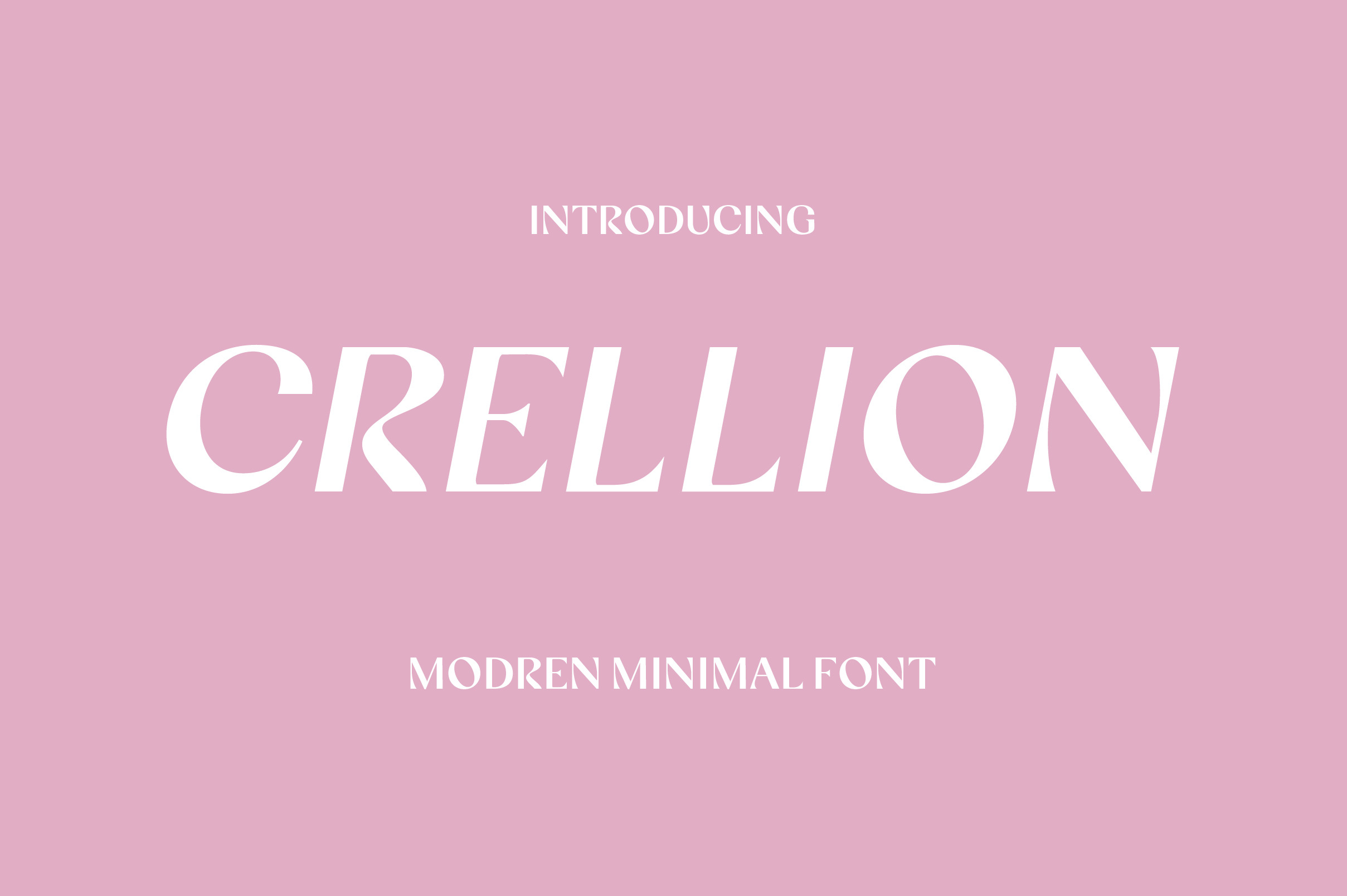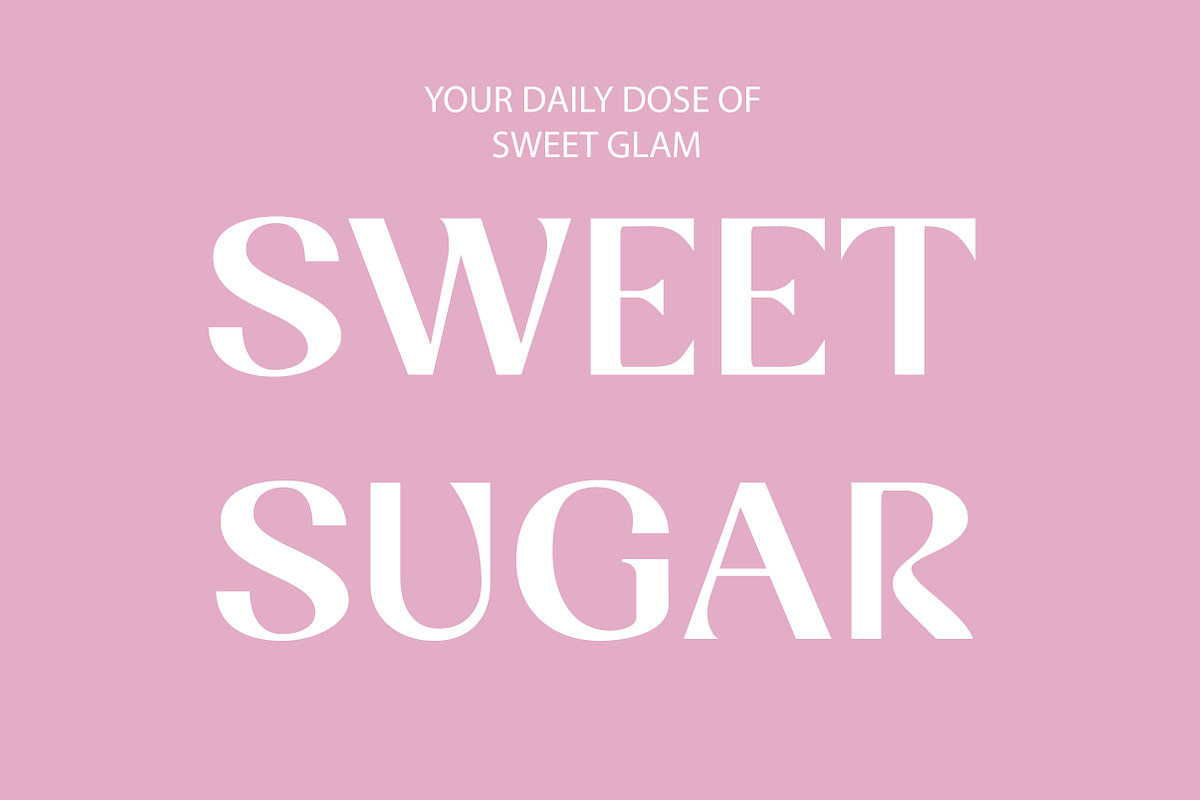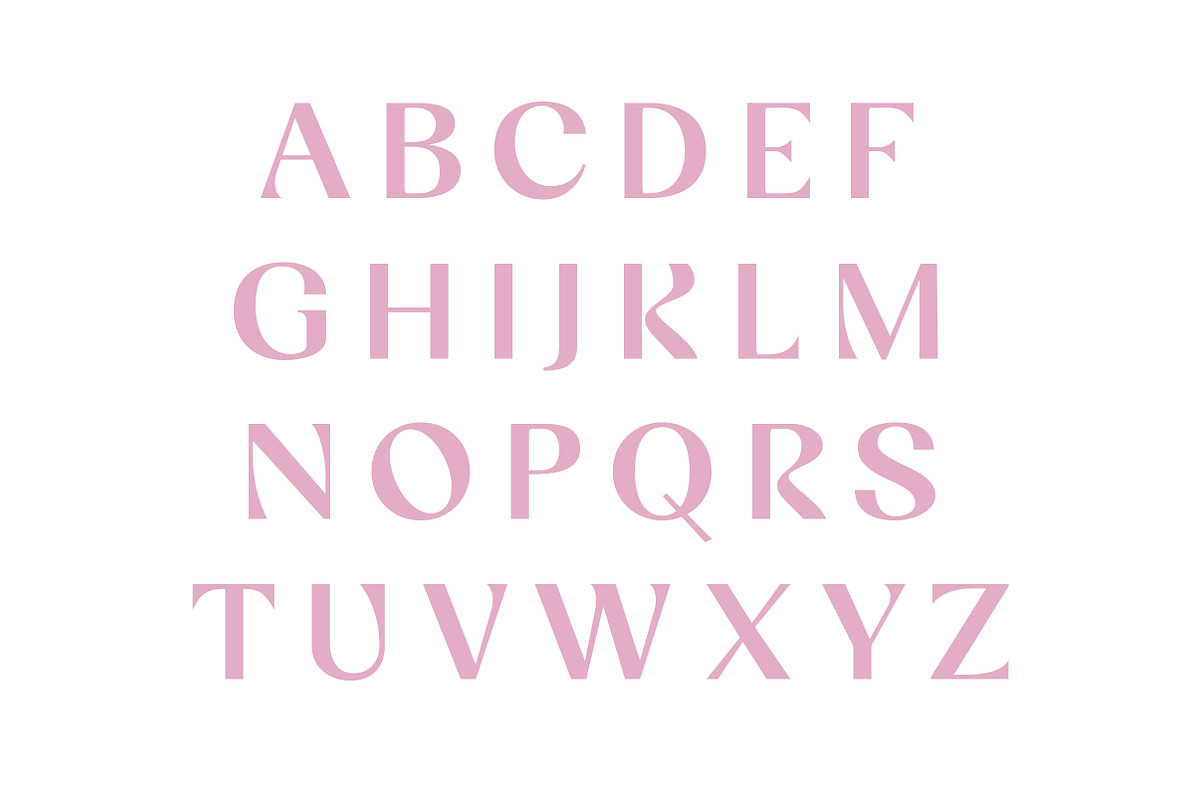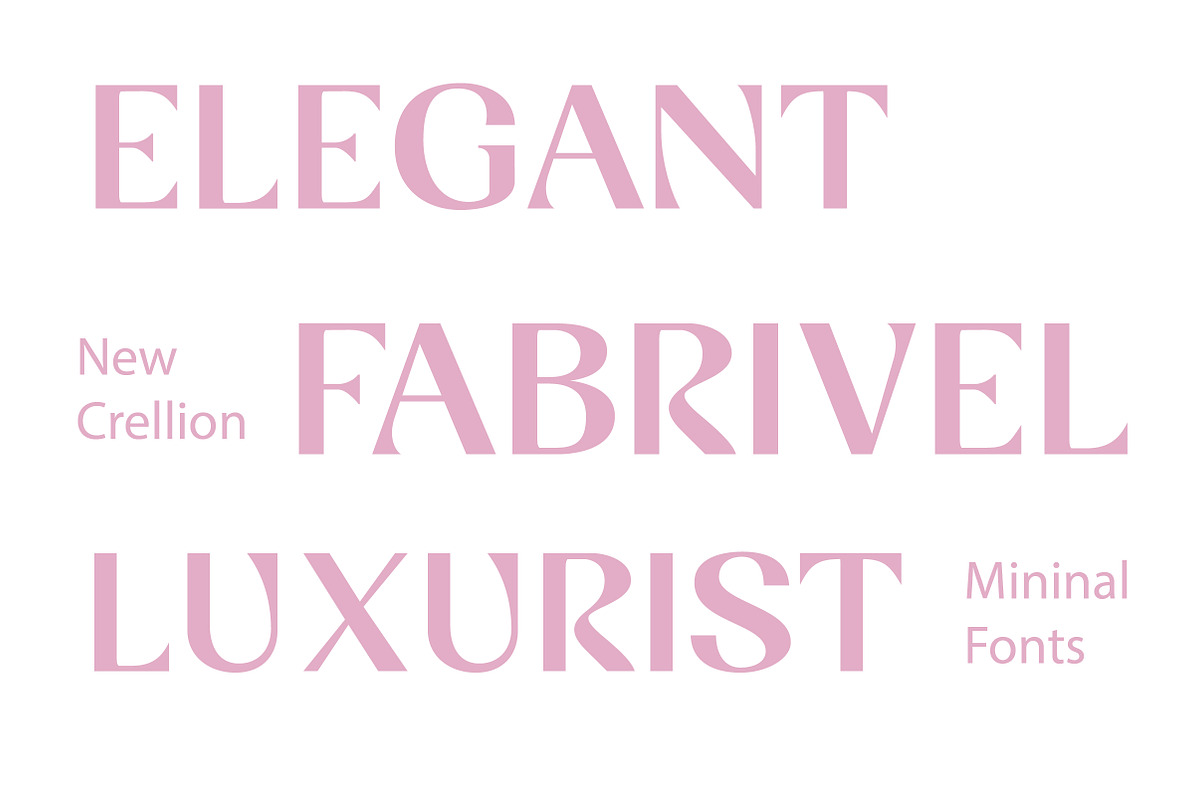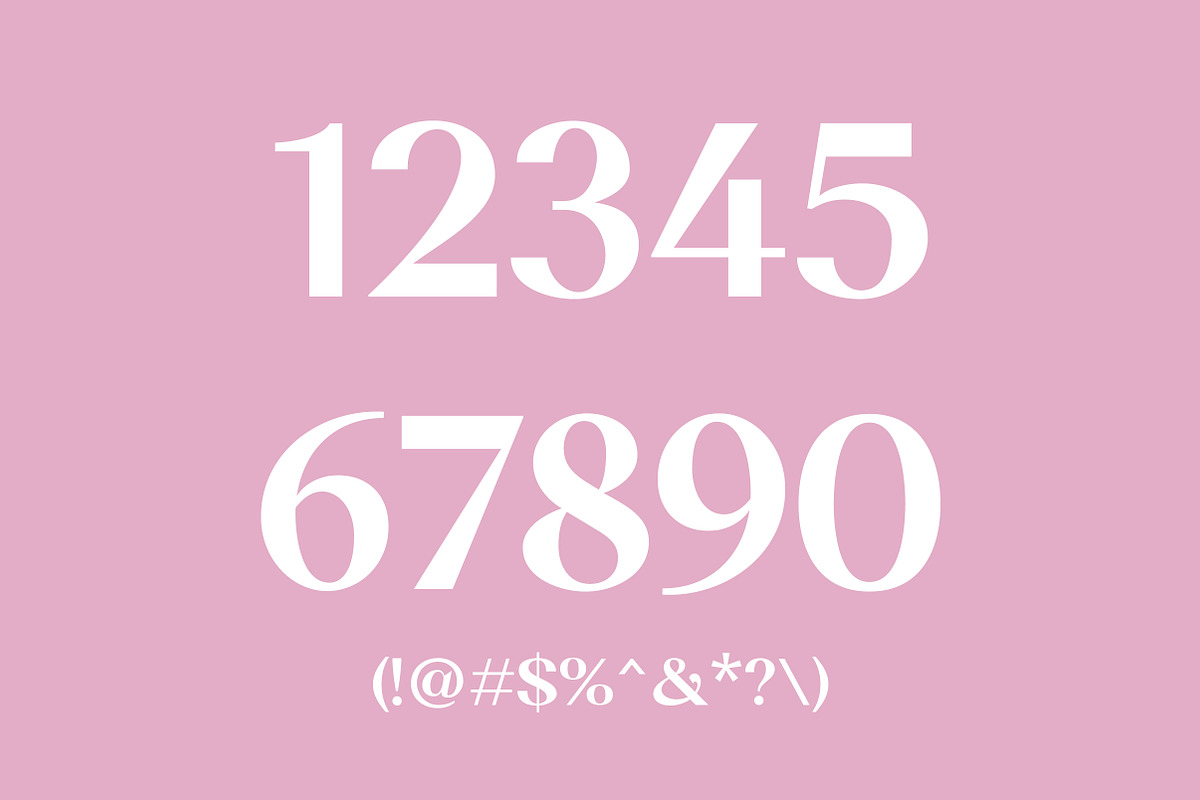
Crellion | Modern Serif Typeface
Crellion is a sleek and expressive modern serif typeface, available in Regular and Italic styles. Designed for visual impact and refined readability, Crellion blends classic elegance with a contemporary twist—perfect for branding, editorial layouts, packaging, logos, and creative design projects.
The Regular style offers a clean, balanced presence, ideal for headlines, body text, and stylish visual identities. The Italic style introduces graceful movement and contrast, adding personality and sophistication to quotes, titles, and callouts.
Uppercase & lowercase letters
Multilingual language support
Crellion is a versatile serif duo that brings strength, elegance, and modern sophistication to any design project.